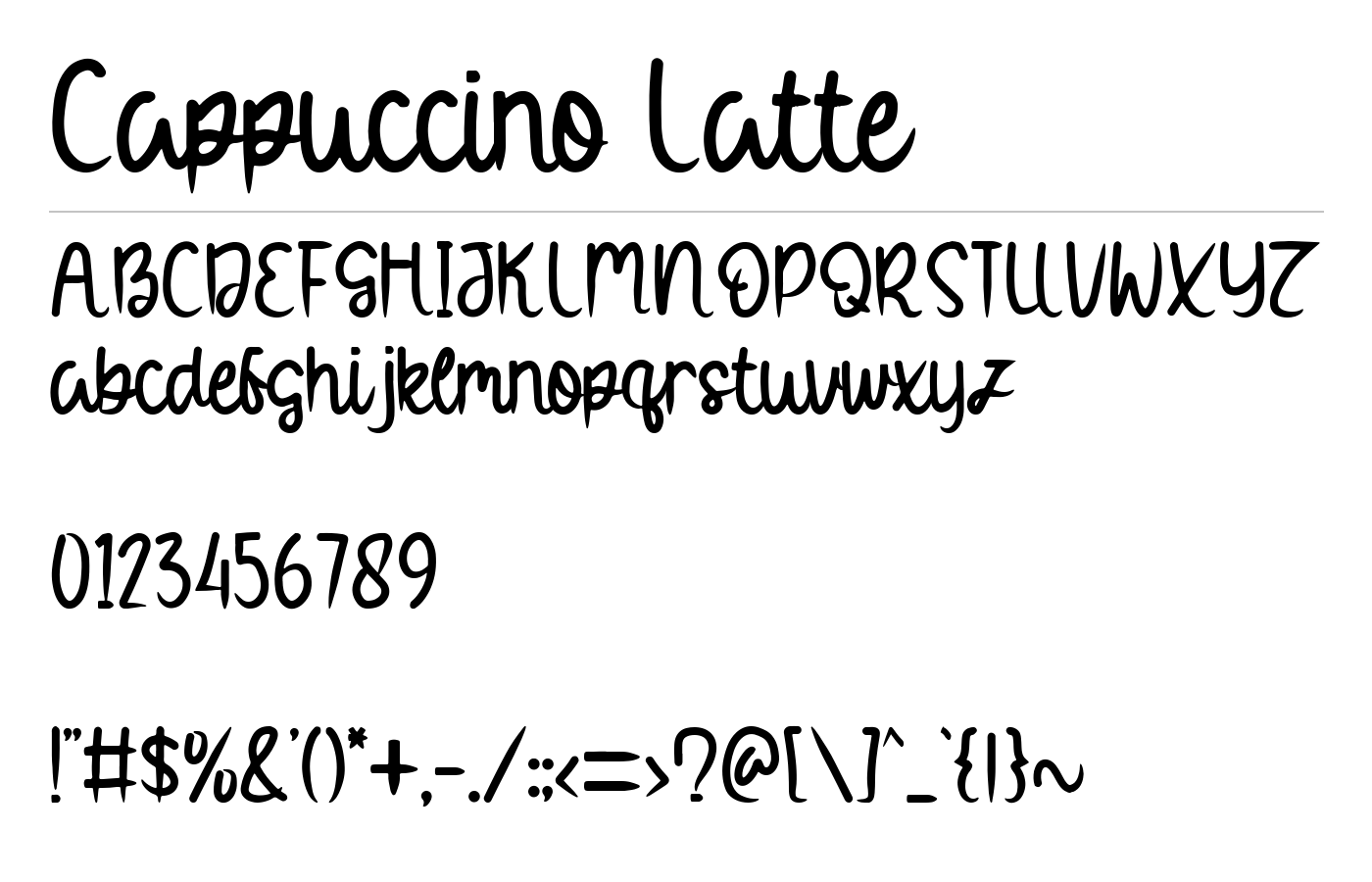
Cappuccino Latte is a lively handwritten font with a casual, friendly vibe that feels approachable and warm. Its tall, slightly narrow letterforms and playful irregularities give it personality, making it ideal for informal branding, invitations, and creative projects wanting a personal touch. This font works well in headlines and decorative uses where a charming, hand-drawn style adds character without sacrificing readability.
Cappuccino Latte Font
About Cappuccino Latte Font
| Font family | Cappuccino Latte Font |